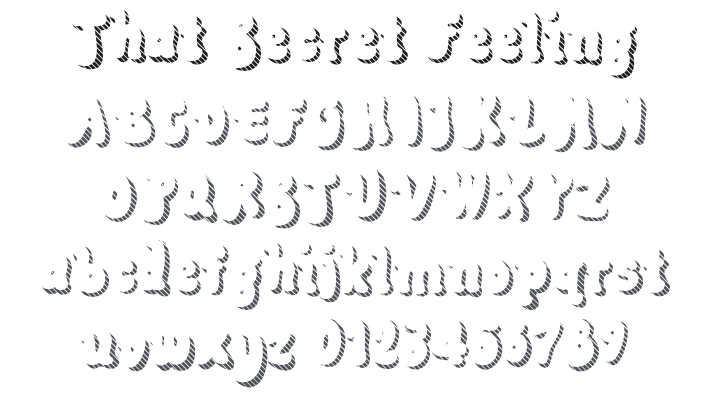
That Secret Feeling Font
About That Secret Feeling
That Secret Feeling is a bold, puffy display typeface where chunky, rounded letterforms appear almost transparent — outlined and filled with diagonal stripes that cast a shadow-like effect, making the letters visible against white through contrast alone. The bubbly, inflated character gives it a playful, almost 3D quality. Perfect for pop art posters, retro fashion graphics, festival branding, novelty designs, and any headline needing fun, eye-catching visual trickery.